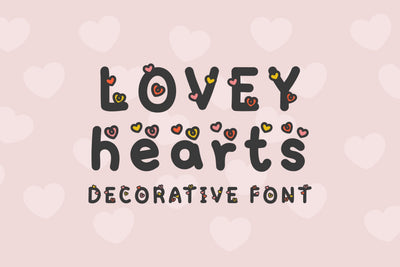
Lovey Hearts - Decorative Font
Lovey Hearts is a sweet and cute handwritten font with heart decorations. You can use this font in various projects - blog posts, logos, branding, digital planner, digital notes, invitations, greeting cards, planners, digital journal, photo albums, study notes, school notes, college notes, decorations and much more. Its authentic look and feel will add a personal and realistic feel to your designs.
The font includes uppercase, lowercase, numbers, punctuations